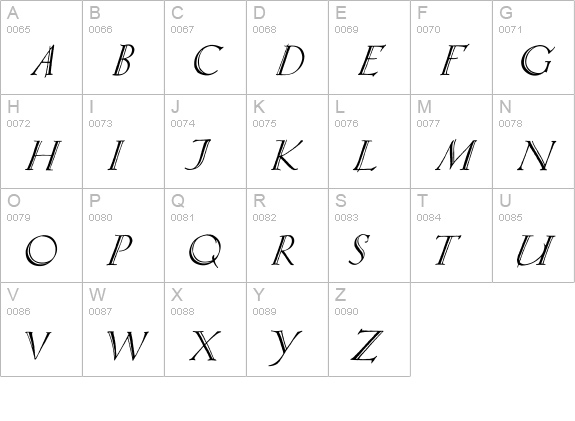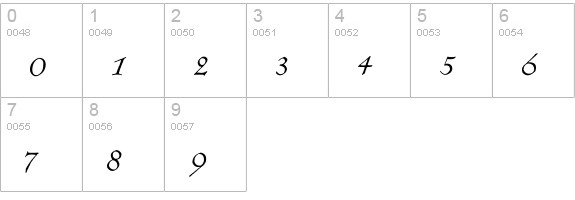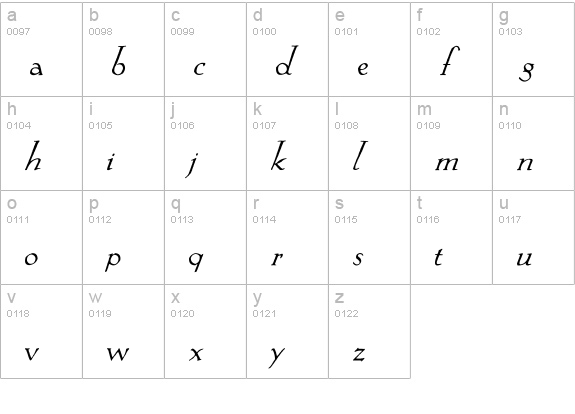
Springtime_Alternate Font Details
Springtime_Alternate is a stunning font that perfectly captures the essence of springtime with its delicate and intricate design. This font is the perfect choice for any project that requires a touch of elegance and beauty. Its alternate characters add versatility and uniqueness to your designs, allowing you to create eye-catching and captivating visuals. With its flowing curves and graceful strokes, Springtime_Alternate brings a sense of freshness and renewal to any design. Whether you are working on invitations, logos, branding materials, or any other creative project, this font will effortlessly elevate your work to new heights. One of the best things about Springtime_Alternate is that it is free. Yes, you read that right! This amazing font is freely available to download at FontsMarket.com. Now you can enjoy the beauty and versatility of Springtime_Alternate without having to worry about breaking the bank. Simply head over to FontsMarket.com, download the font, and start creating stunning designs that will leave a lasting impression. Don't miss out on this incredible opportunity to enhance your designs with the captivating beauty of Springtime_Alternate. Download the font today and let your creativity bloom like never before.